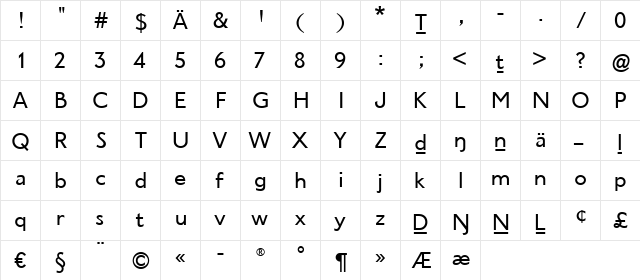
A Yolngu NTU Regular
| Designer | Kevin Brown |
Design Context for A Yolngu NTU Typeface
A Yolngu NTU offers clean, dependable letterforms without strong stylistic allegiance, making it a practical choice for designers who need flexibility.